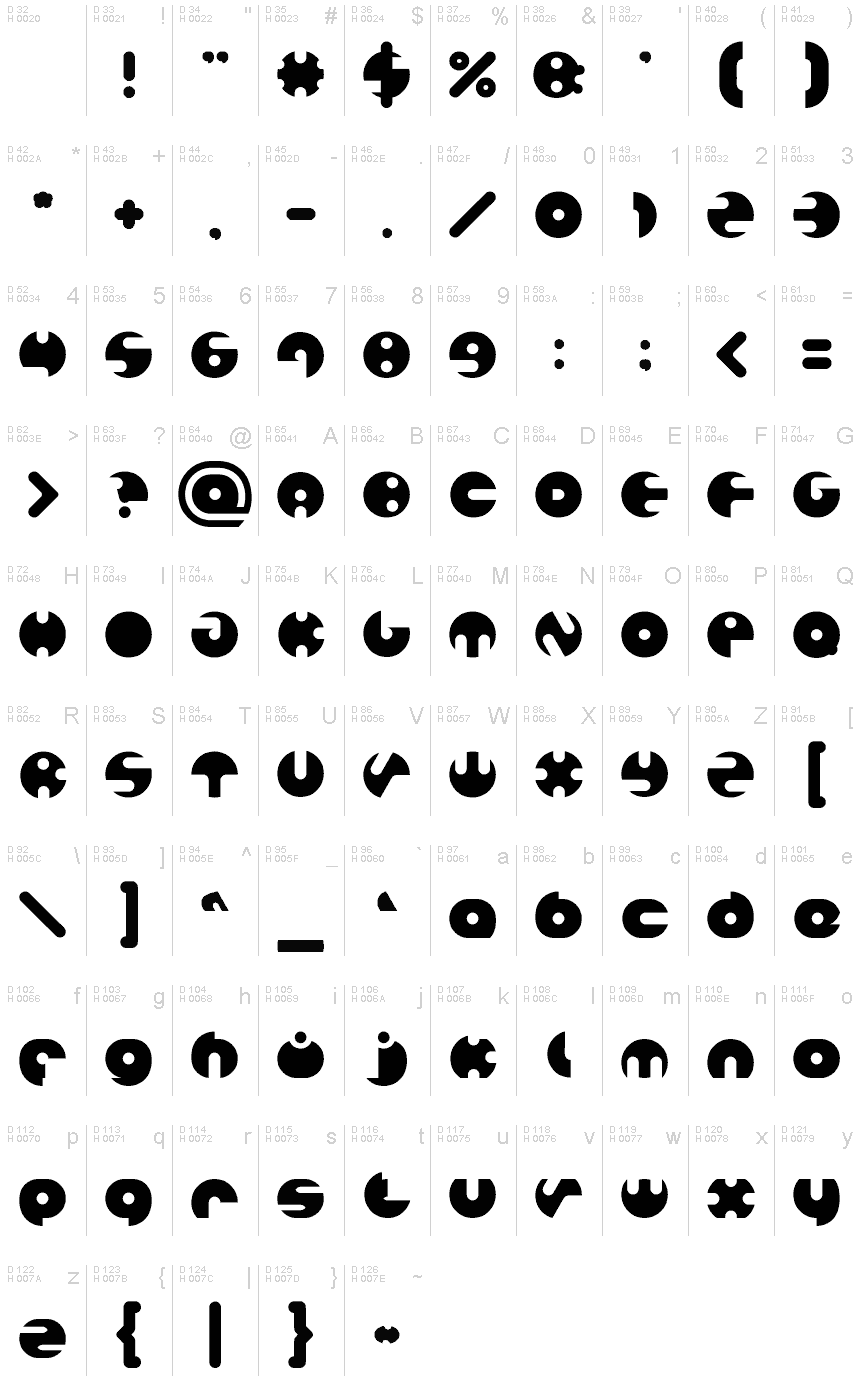
MILLION by Wino S Kadir of Weknow is a free futuristic display font with massive rounded forms and an almost pictographic silhouette. Circular bodies, deep geometric cutouts, and blunt joins make each letter resemble a custom symbol rather than ordinary type.
Space-age entertainment is its clearest territory, especially game graphics, electronic-music posters, and science-fiction packaging that can use the lettering as part of the artwork. Its playful machinery also suits youth-oriented merchandise, giving that market a friendlier alternative to sharp-edged techno lettering.
The MILLION font was created by Weknow Font Foundry.